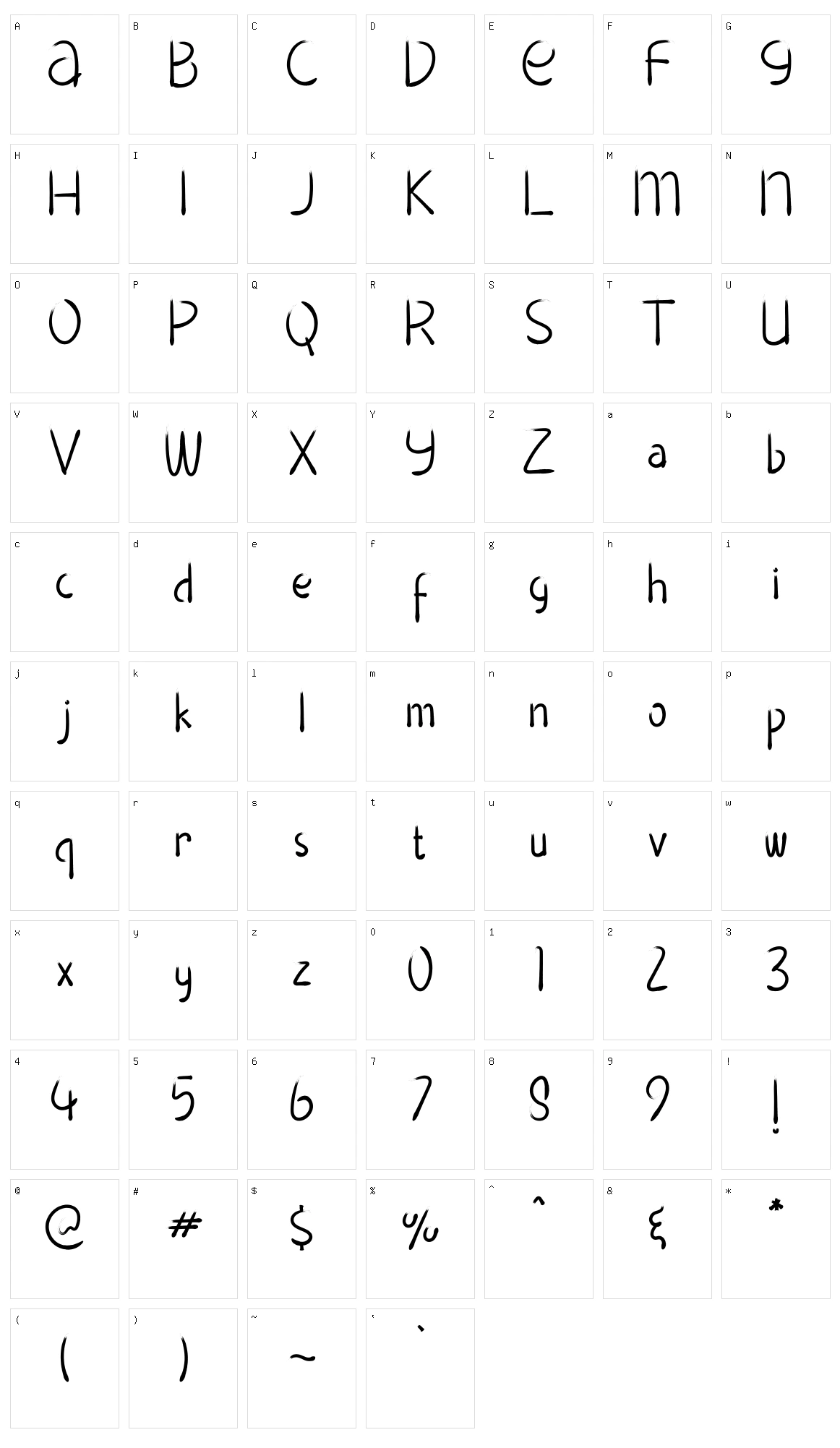
The free font Blackboard School is carefully designed by Airotype Studio, showcasing a thoughtful balance of creativity and usability and falls under the Cartoon font style. When you download the ZIP file, it contains only 511.32 KB of font files, making it lightweight and quick to download. Please review the license details below to understand permitted usage and distribution rights. If license information is not available, we recommend using this font for personal projects only or contacting the author directly for commercial usage permissions.